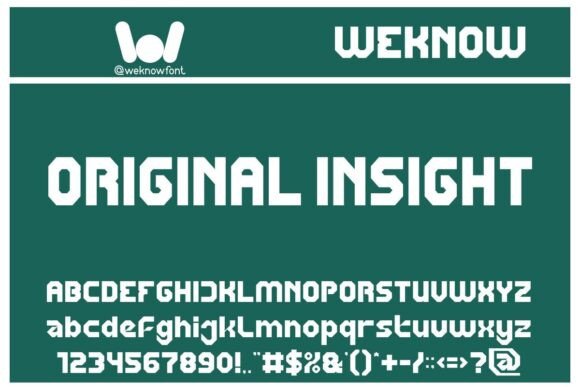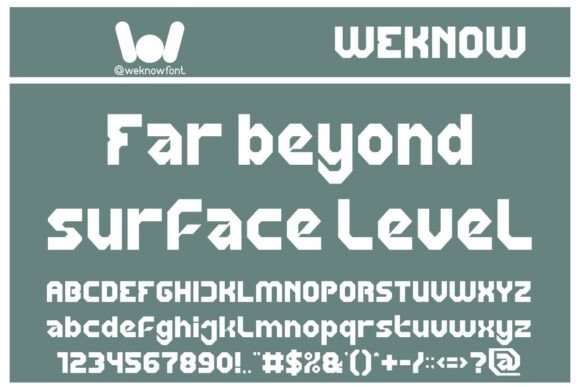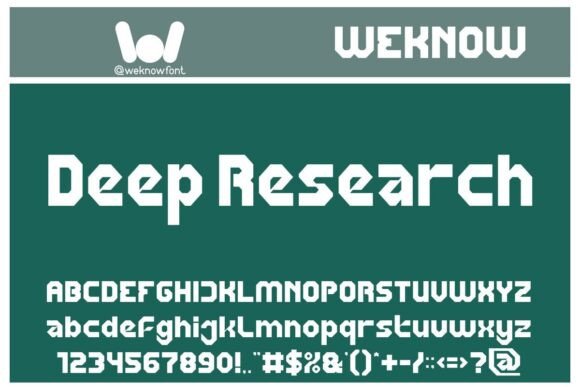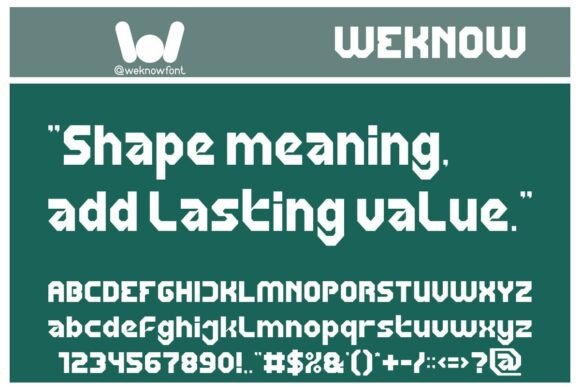
Original Insight Font: Bold Geometric Typography for Logos
About the Original Insight Font
Unleash your creativity with Original Insight Font, a versatile font perfect for a wide range of applications. Accentuate your creative vision with the dynamism of Original Insight. As a geometric and block-style font, it encapsulates an amalgamation of modern, futuristic, and minimalist aesthetics. The clean, bold, and sporty facets of this font exhibit an expressive strength that stands out impressively. Whether it’s for a headline, corporate branding, sartorial graphics, or a captivating logotype, Original Insight molds itself superbly. From the smooth pages of a magazine and the imaginative realm of comics and cartoons to the resonance of music covers, gaming graphics, and virtual arenas like YouTube, Instagram, or your personal website, this heavy-duty font enhances and elevates any creative design project with its neat versatility.
Original Insight Font Usage Examples
Original Insight Font Example